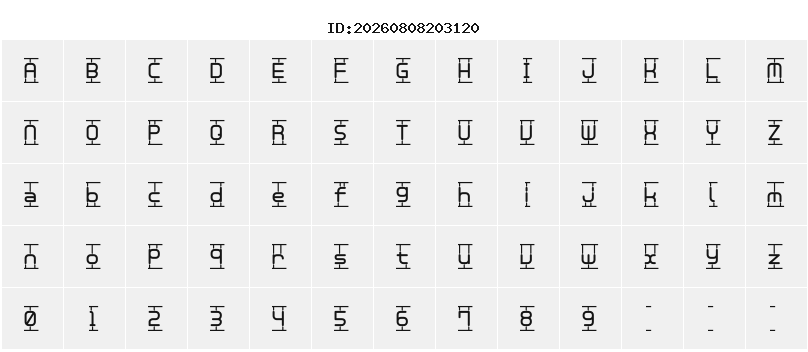
Plamo Preview
• Font Name: Plamo
• Designer: Ryoichi Tsunekawa
About Plamo.ttf
Plamo.ttf is a modern, elegant sans-serif font designed for ultimate readability and visual harmony. Perfect for branding, headlines, web design, and print materials.